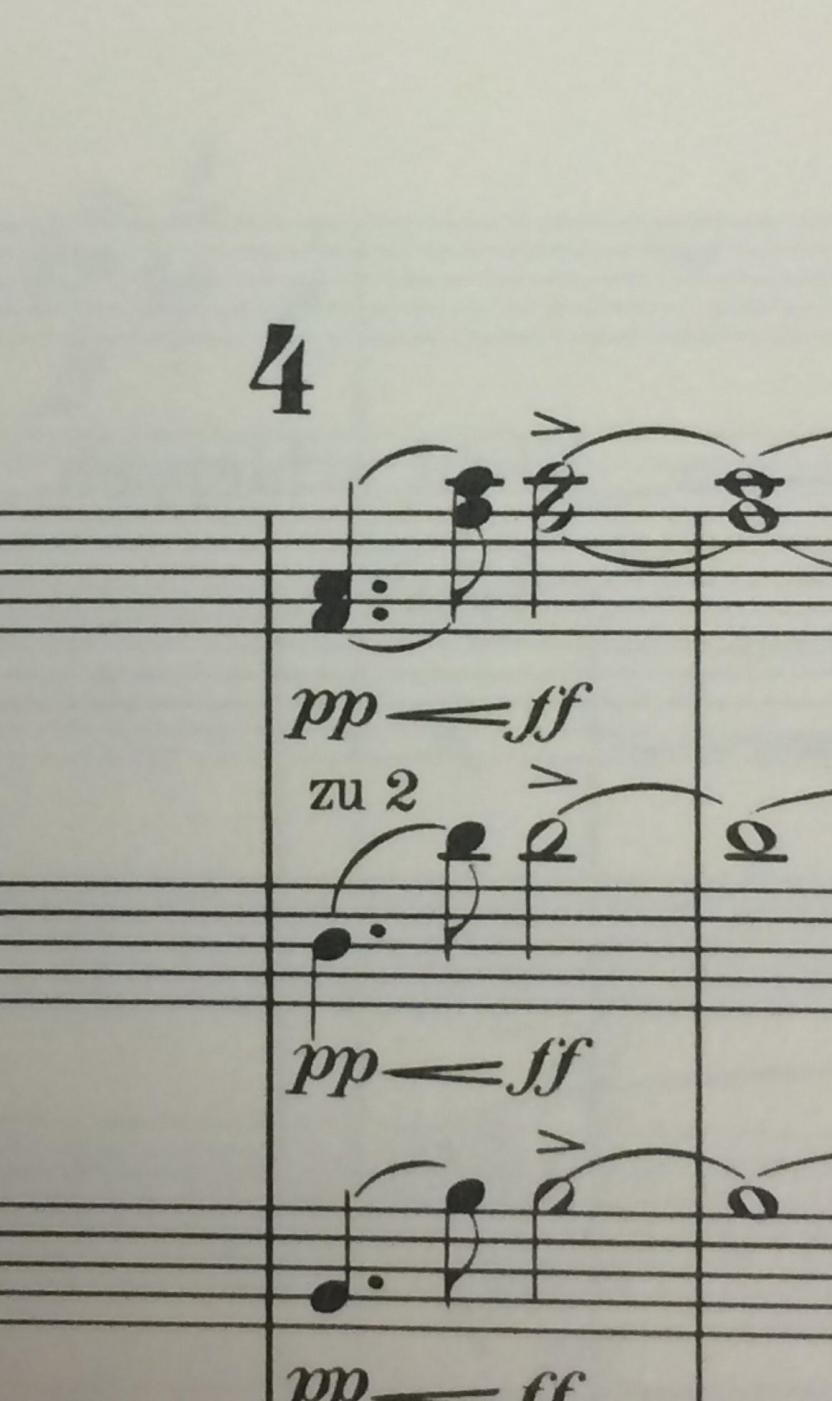
Trying to identify number font from orchestral score
Interested primarily in the font for the "4" at the top of the image. This font is found in the 1906 Universal Edition score of Gustav Mahler's Symphony No.3.
Custom typefaces meant specifically for printing music scores have existed since the metal type days. That's likely what was used to print your sample.
Sonata by Adobe is just one digital version of such a typeface that replicates the look of your sample.
ITC Clearface Heavy and Durham Abbey are also similar, but not spot-on matches.